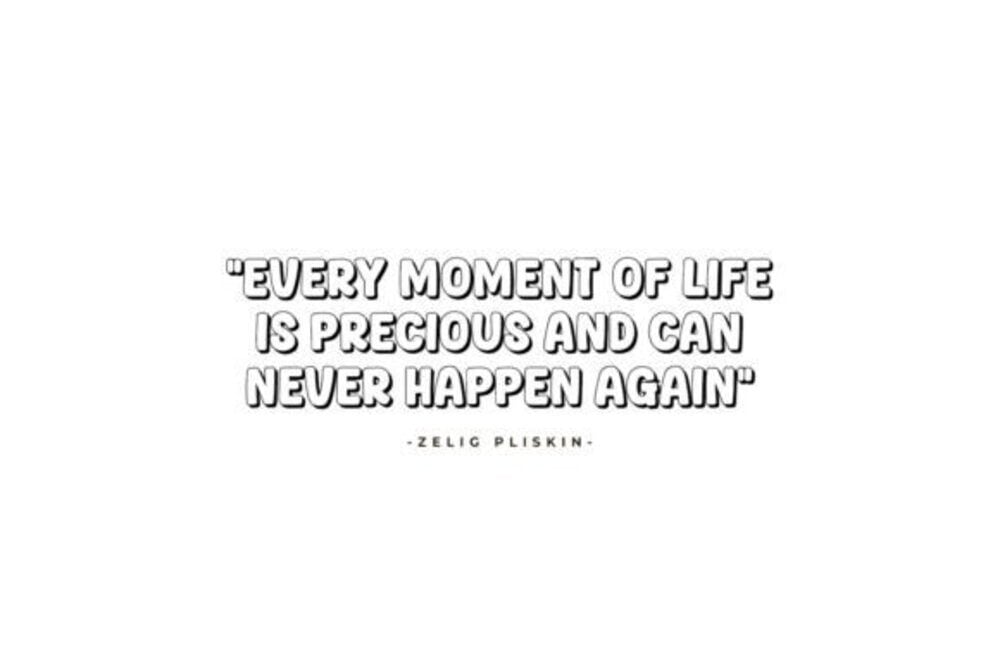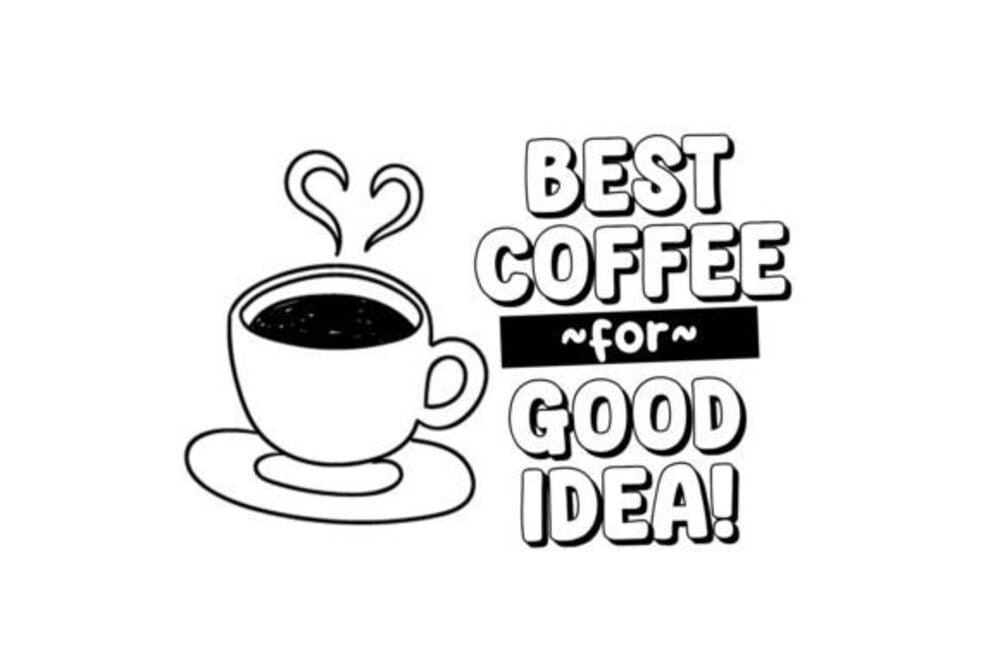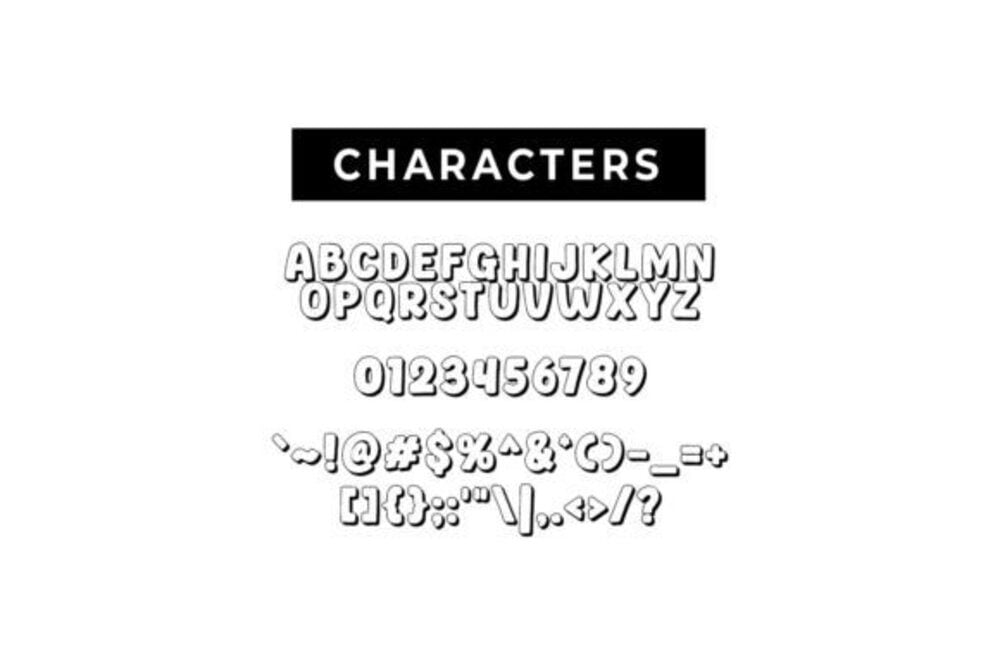
This Cafe Font
This Cafe is a warm and inviting font that exudes cozy charm, perfect for cafes, bistros, or any food-related branding. With its smooth, handwritten style and soft curves, it brings a personal touch to menus, signage, and promotional materials. The friendly, casual design of This Cafe evokes a welcoming atmosphere, making it ideal for designs that aim to create a relaxed and inviting vibe.